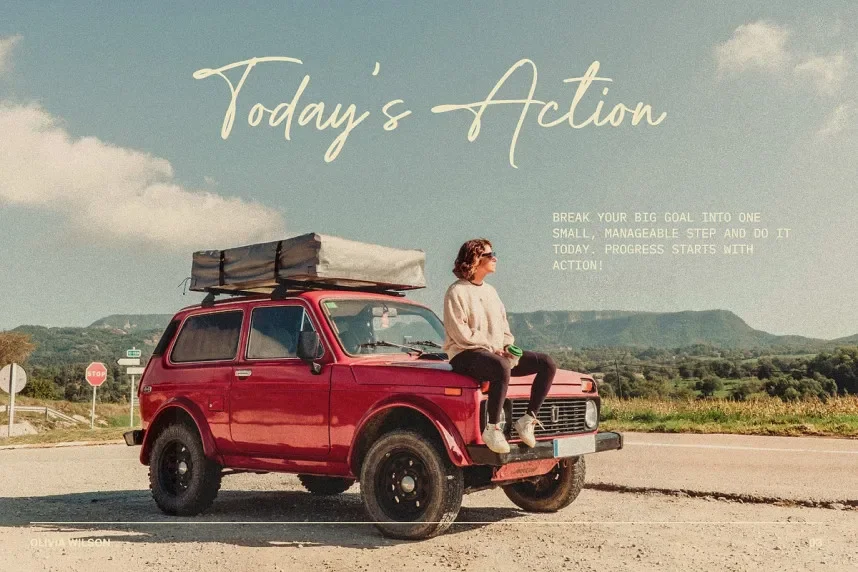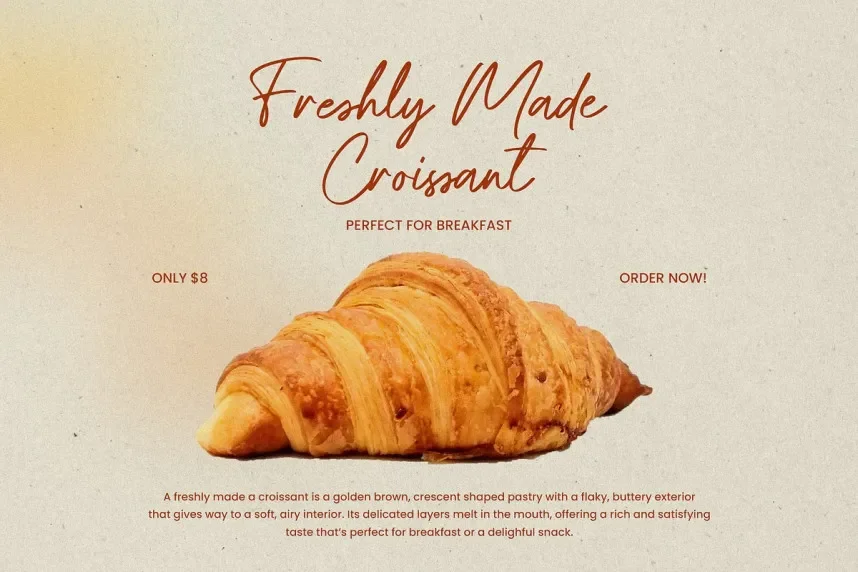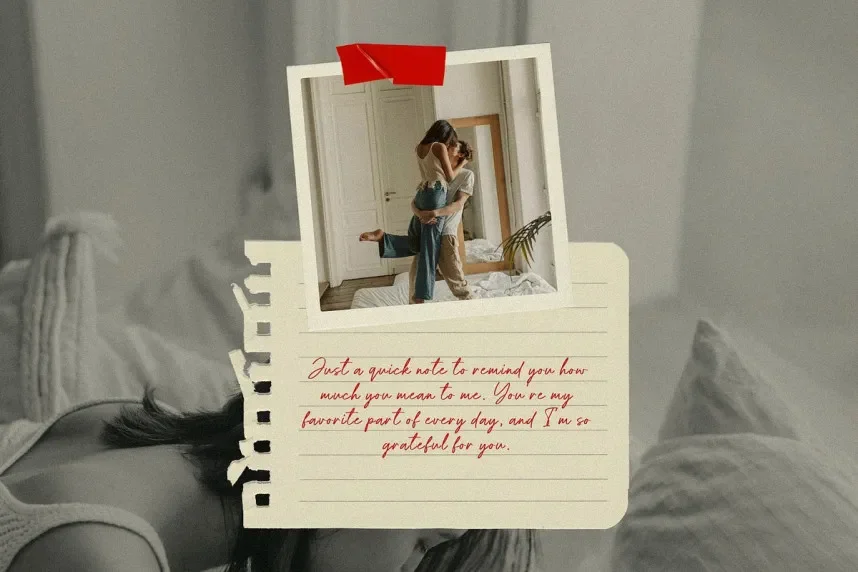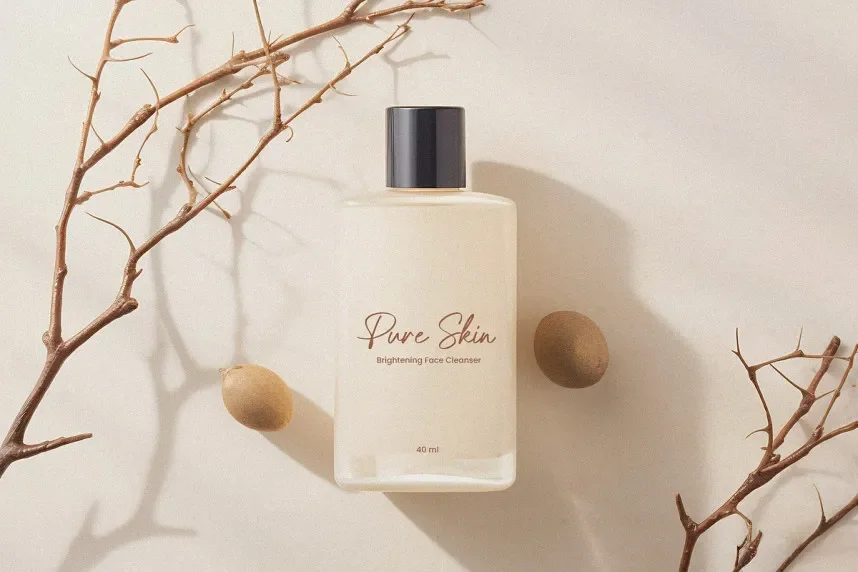
Beyond Dreams Font is a whimsical, script-style typeface designed for creative and artistic projects. Its playful curves and unique letterforms make it perfect for designs that need a bit of magic, such as invitations, greeting cards, and personal branding.